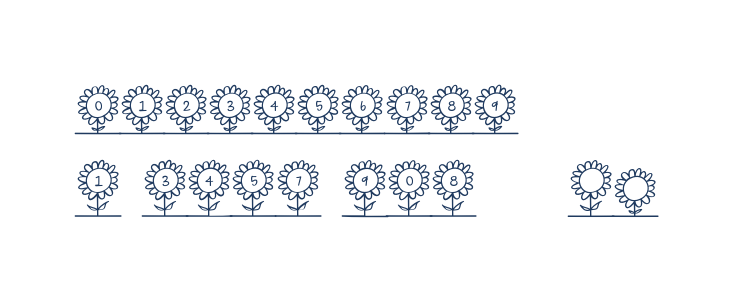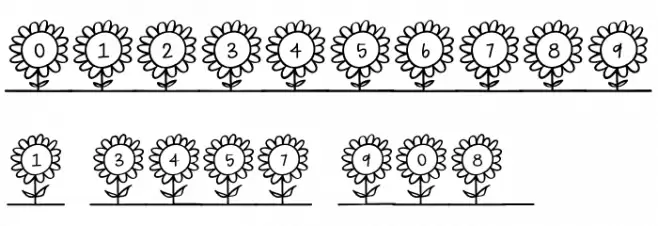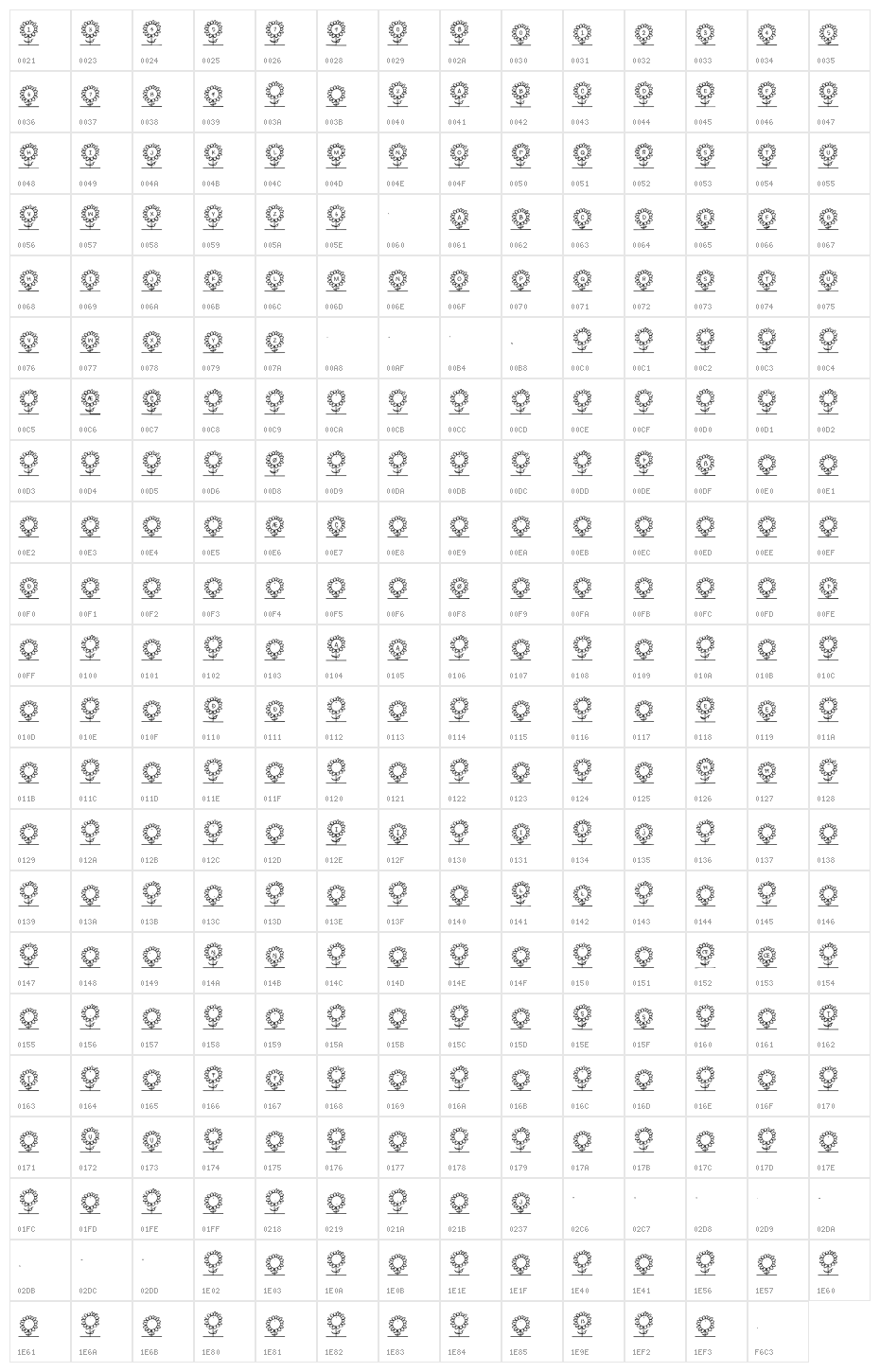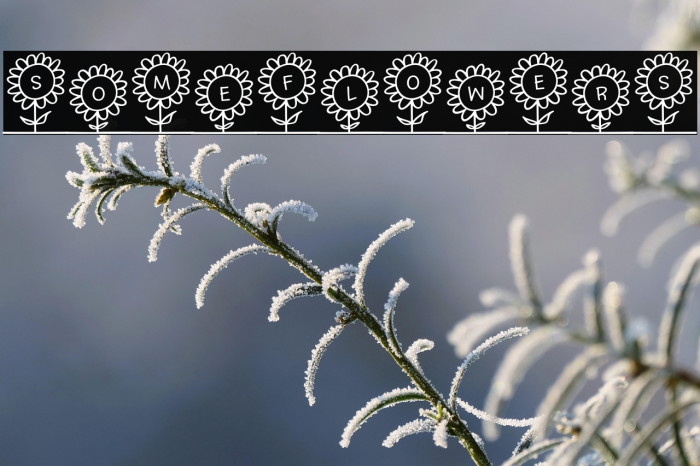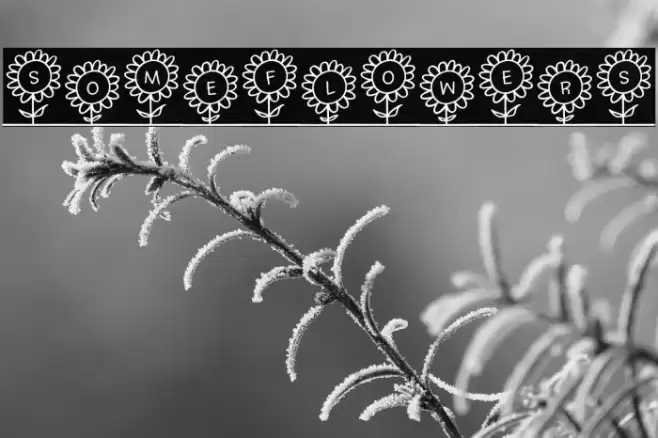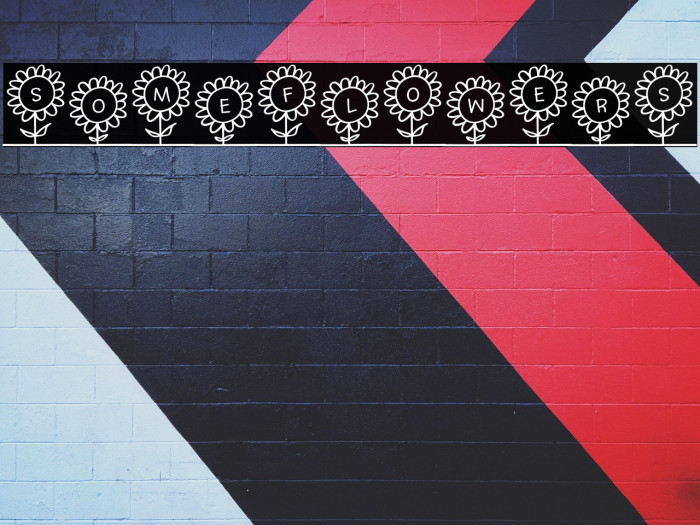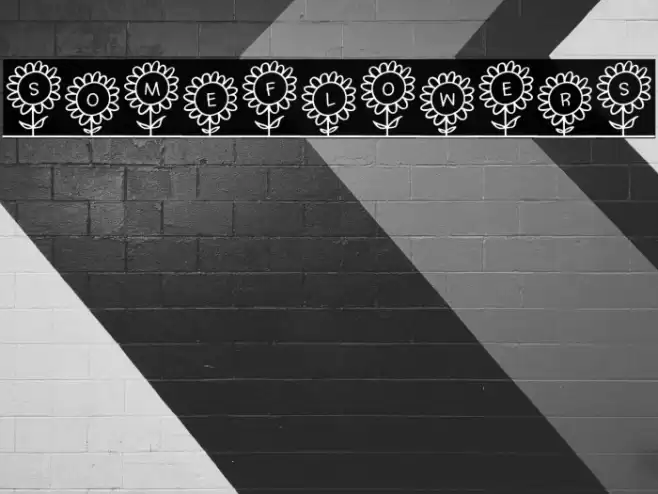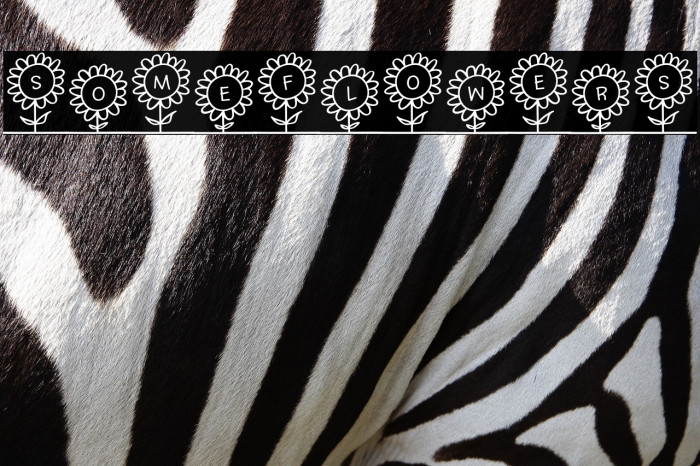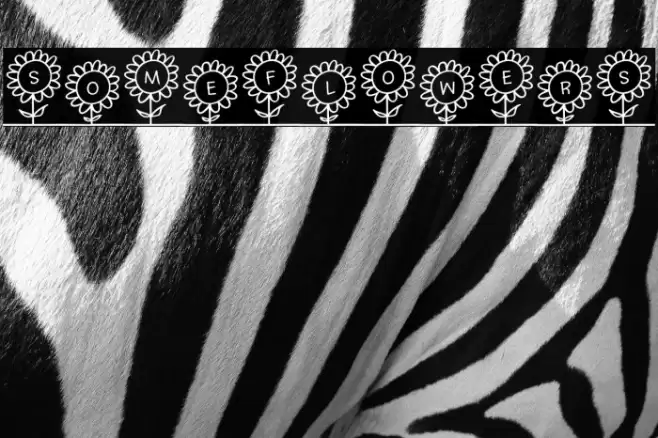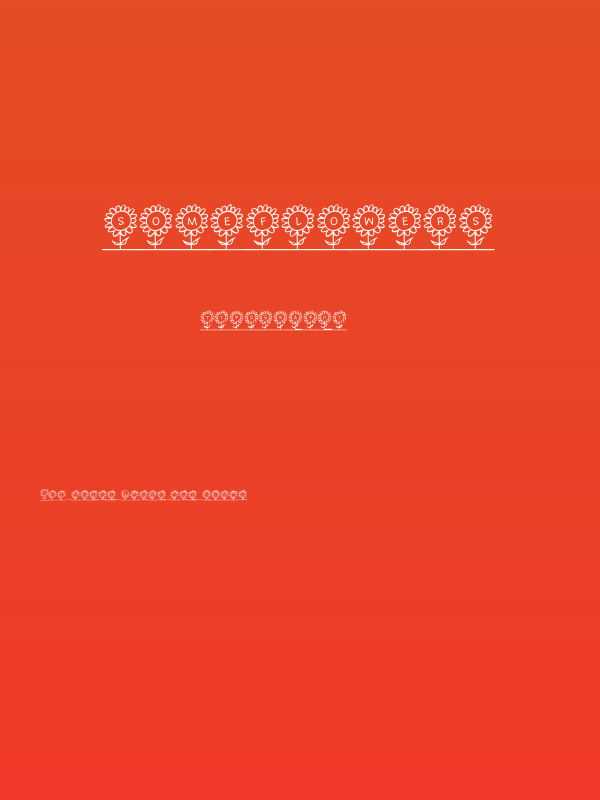
SoMeFlOwErS Font
SoMeFlOwErS Description
This decorative font features each character encased within a stylized flower design, creating a playful and whimsical appearance. The letters and numbers are bold and clear, ensuring readability despite the intricate floral embellishments. The font is ideal for projects that require a touch of nature or a fun, lighthearted theme. The consistent flower motif around each character adds a unique charm, making it suitable for creative and artistic applications. The design maintains a balance between the decorative elements and the legibility of the characters, making it versatile for various uses.
| Use Case | Headlines, Logos, Artistic projects |
| Proposed Projects | Ideal for children's books, greeting cards, event invitations, and playful branding projects. |